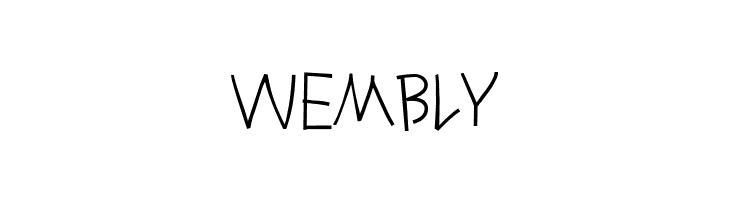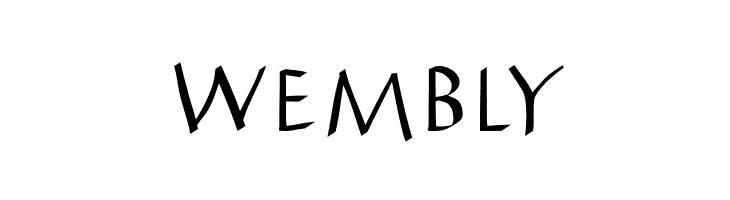
AntikWaCom Font
An artistic, hand-drawn font with angular, whimsical characters.
AntiKwa-Bold Font
A bold, angular font with dynamic strokes and modern elegance.